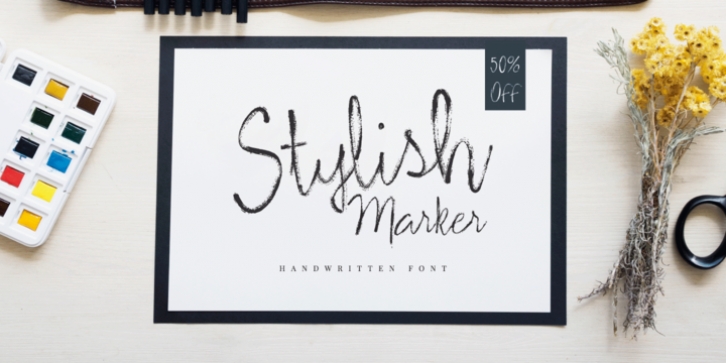
Stylish Marker
is a font based on a casual and worn marker, just before it’s unusable, thus giving rise to an irregular texture, typical of a widely used marker